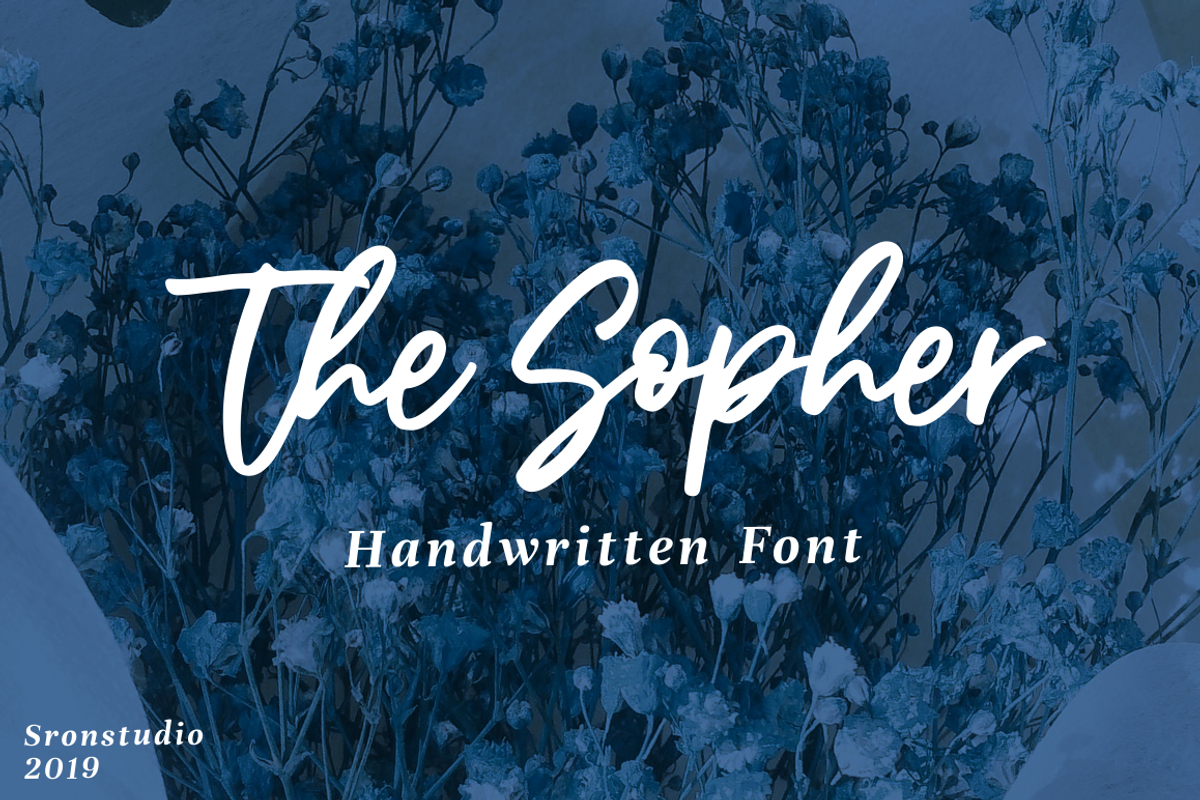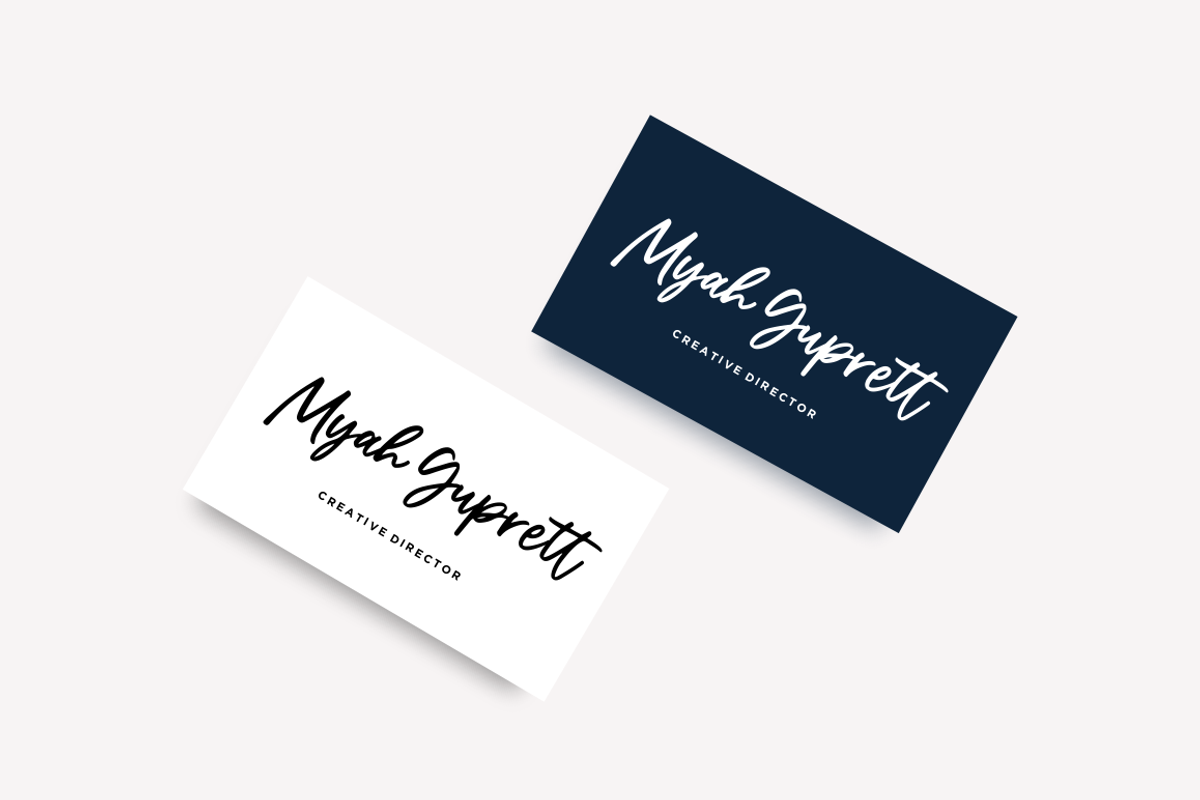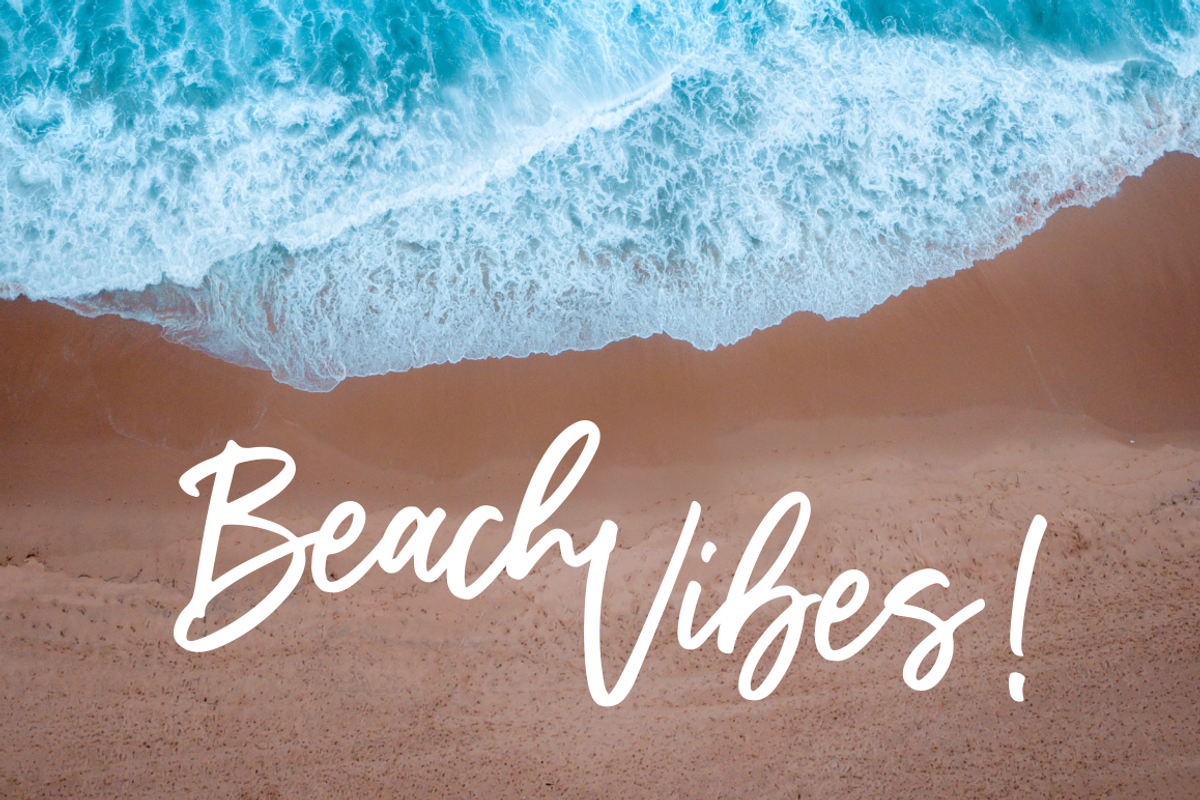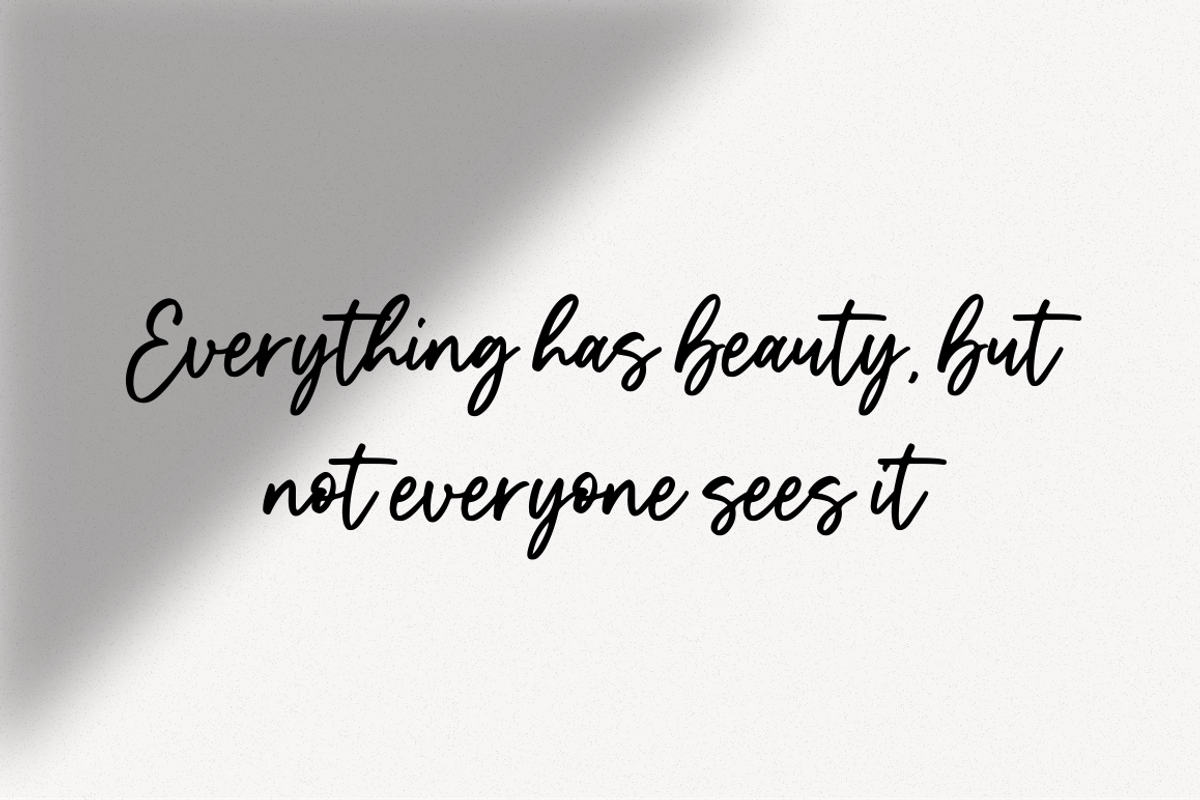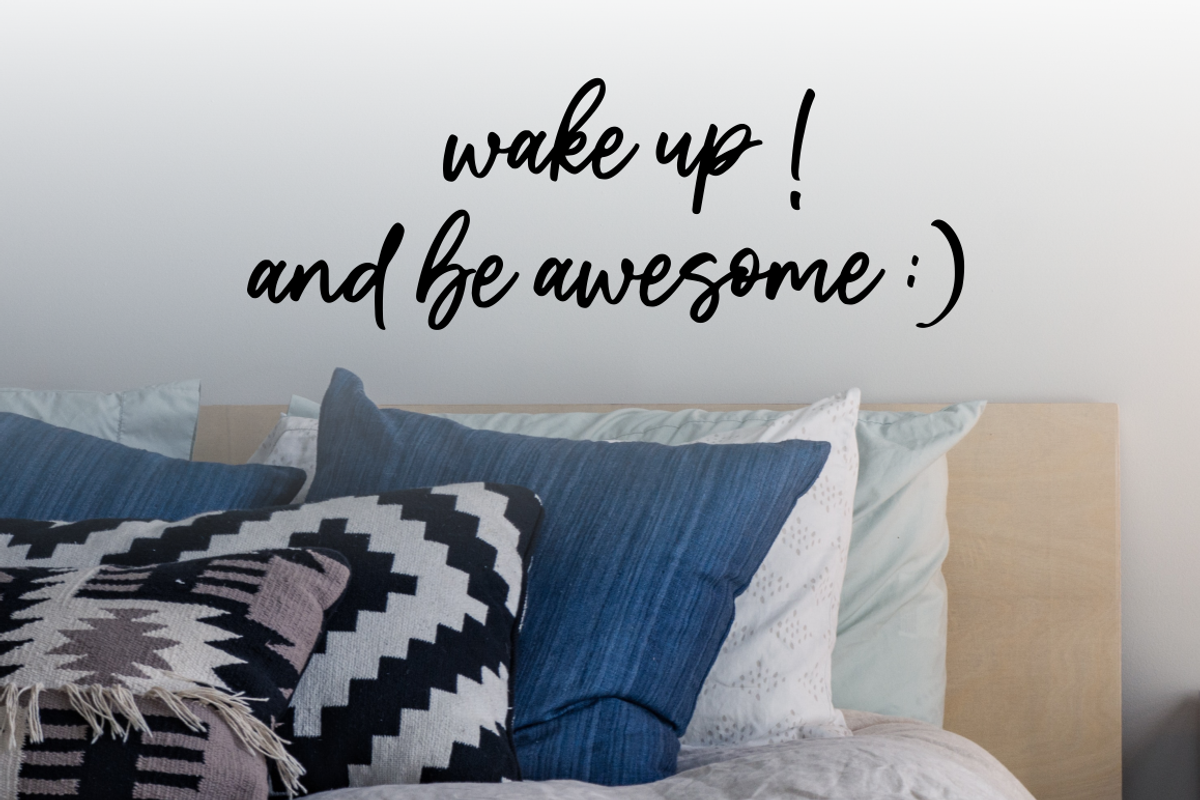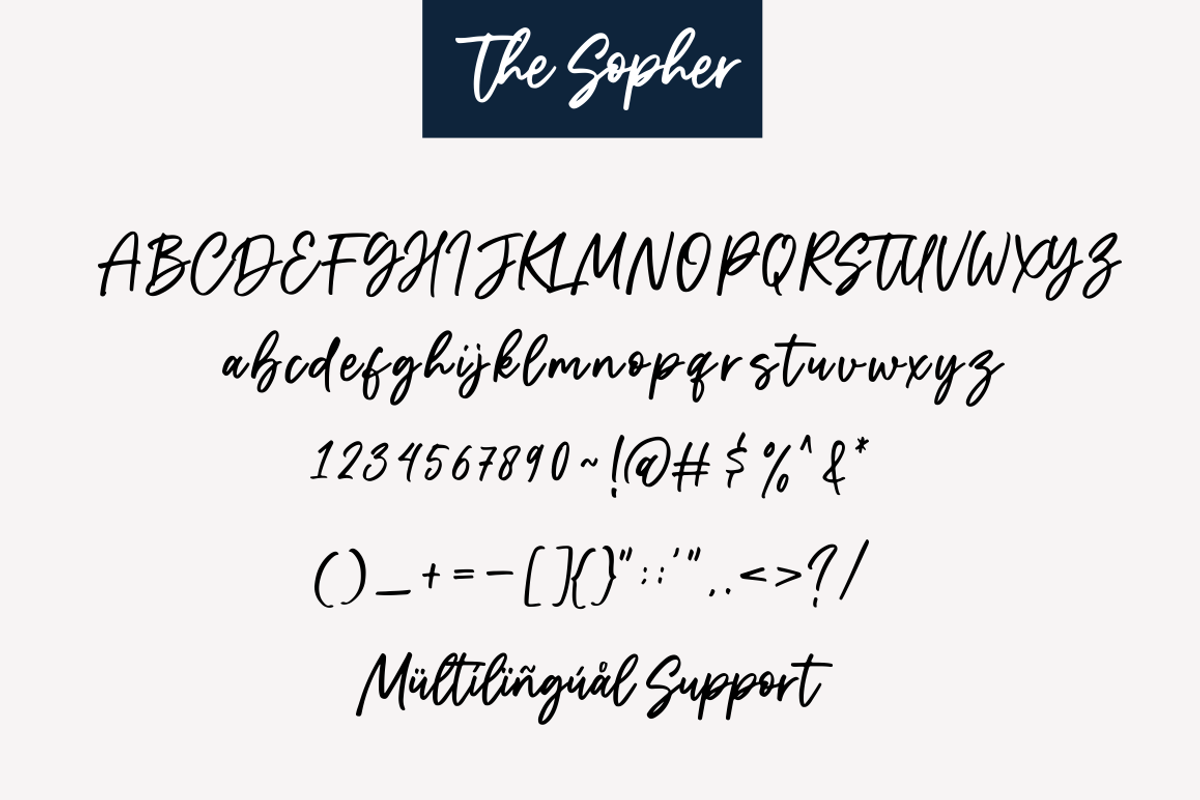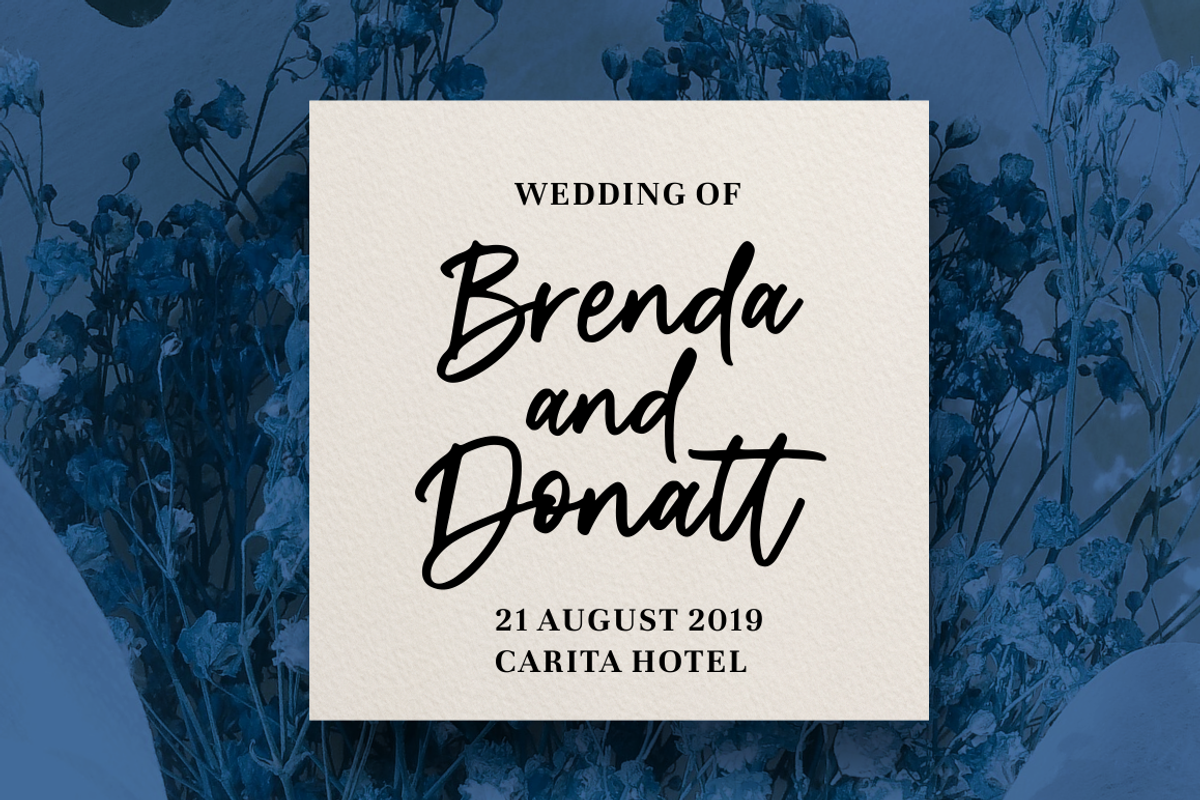
The Sopher - Handwritten Script Font
Introducing The Sopher - a new modern & fresh handlettering font,make this font looks natural, modern, and perfect for any awesome projects.
The Sopher is perfect for many different project such as logos & branding, invitation, stationery, wedding designs, social media posts, advertisements, product packaging, product designs, label, photography, watermark, special events or anything.